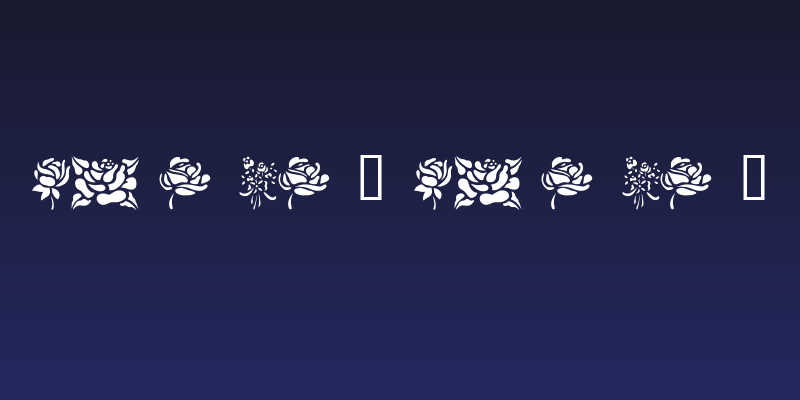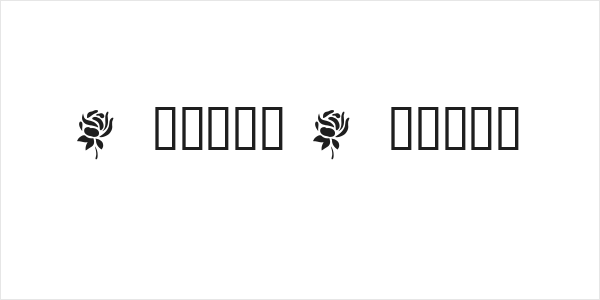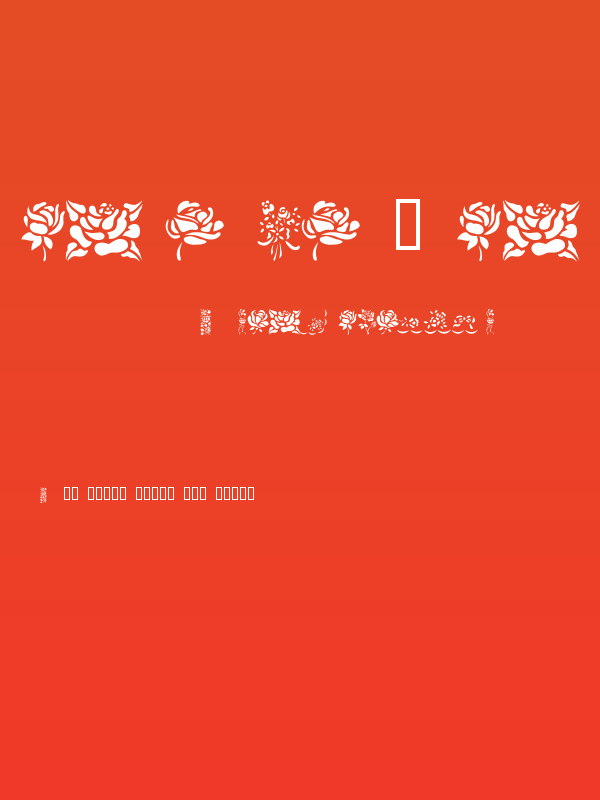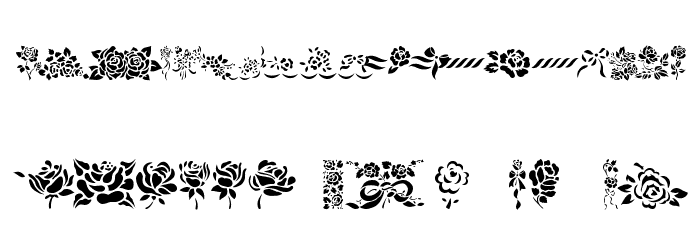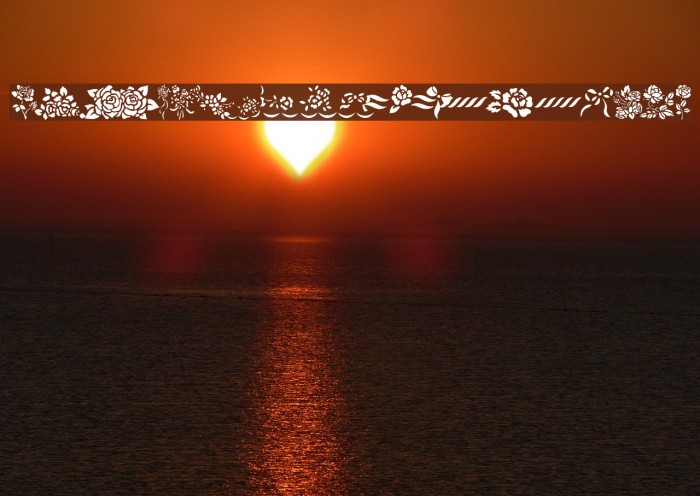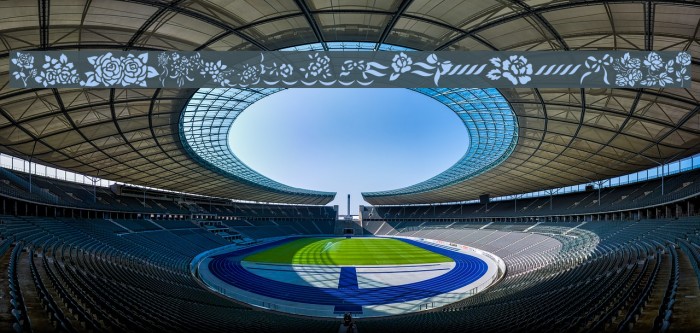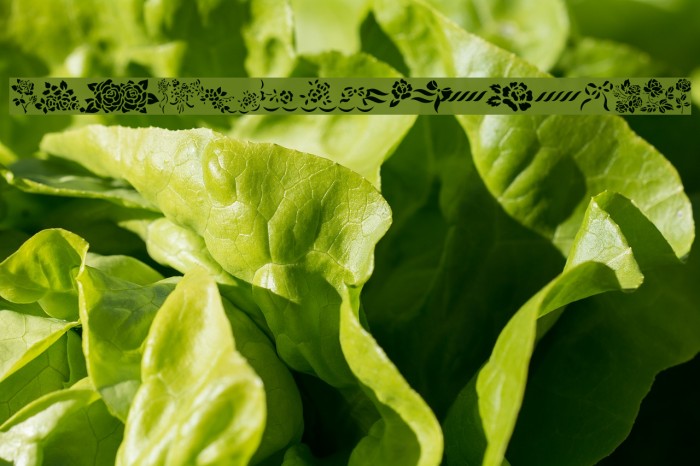
Roses! Roses! Font
Roses! Roses! Description
A decorative display font composed entirely of intricate rose and floral motifs, forming each character and symbol with detailed botanical illustrations. The glyphs are highly ornamental, with each letter and number represented by unique arrangements of roses, leaves, and vines, creating a cohesive floral theme throughout.
| Overall Style | Decorative, Ornamental, Botanical |
| Use Case | Headlines, Logos, Decorative text, Invitations |
| Proposed Projects | Wedding invitations, greeting cards, decorative headings, event posters, branding for florists, and romantic-themed designs. |